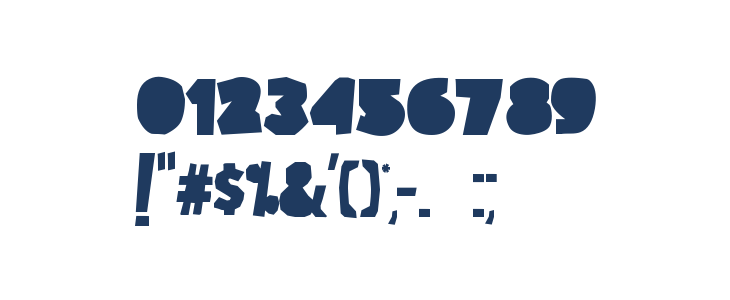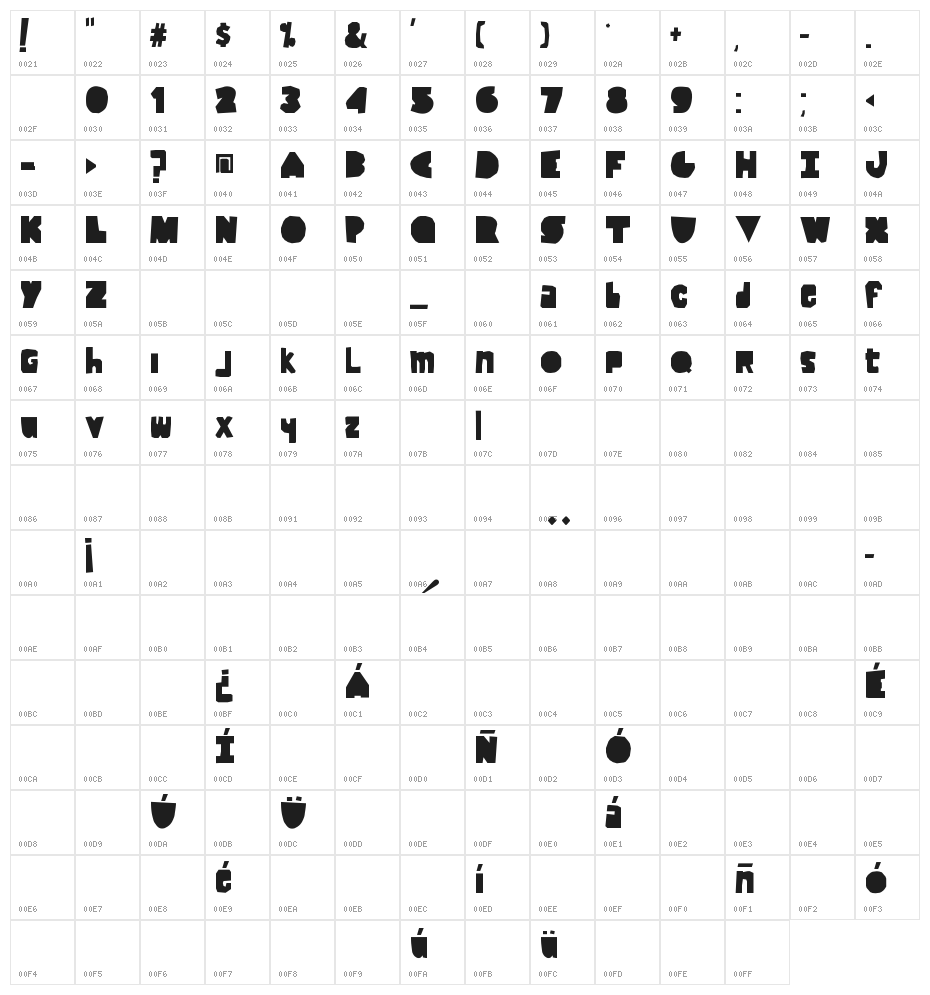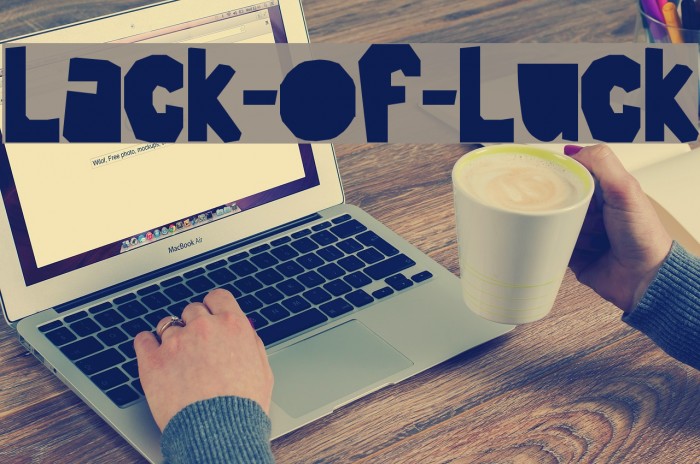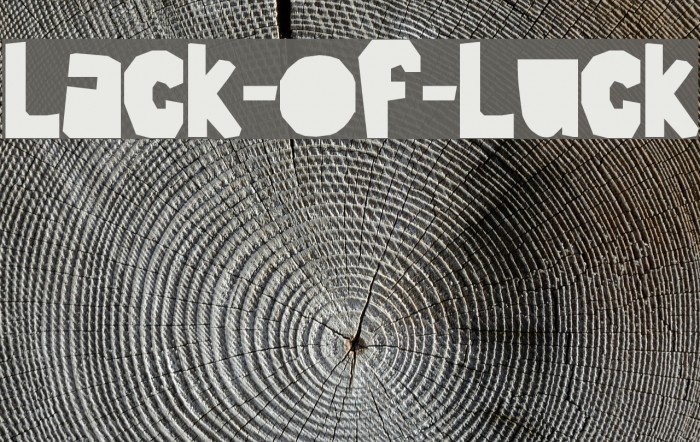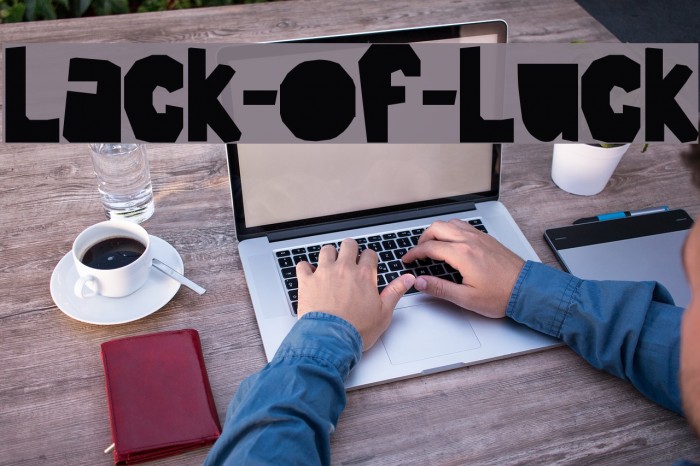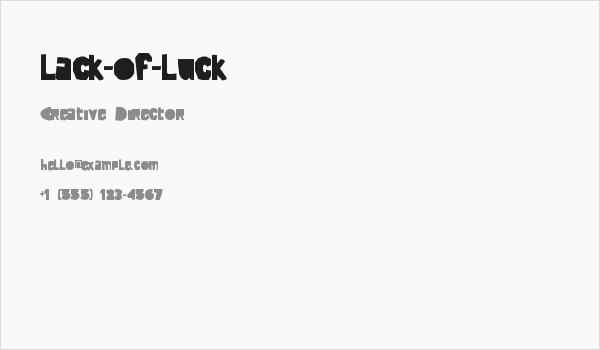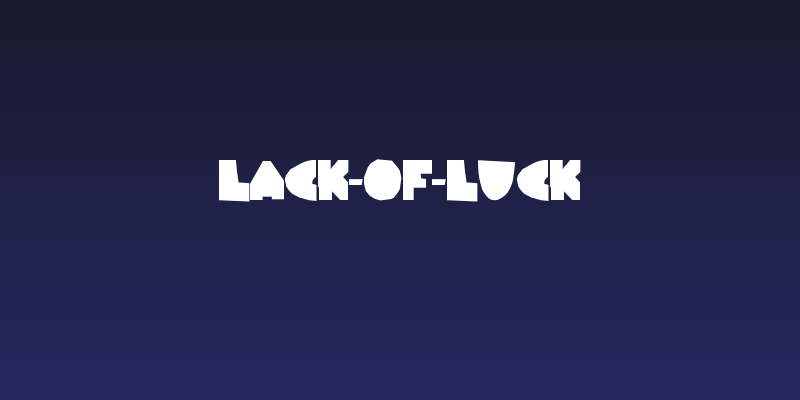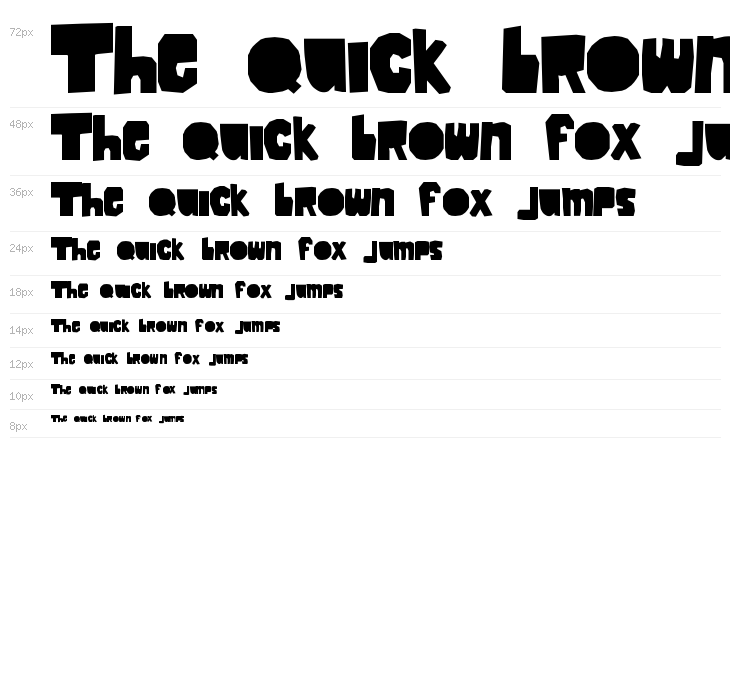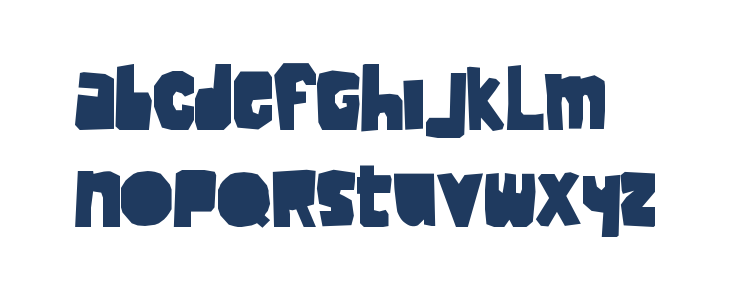
lack-of-luck Font
lack-of-luck Description
This font features a bold and chunky style with a playful and irregular shape to each character. The letters are heavily stylized, with a blocky appearance that gives them a distinct, almost cartoonish look. The uppercase and lowercase letters maintain a consistent weight, contributing to a cohesive visual impact. The numbers and special characters follow the same design principles, ensuring uniformity across all glyphs. This font's unique design makes it stand out, with its bold presence and artistic flair.